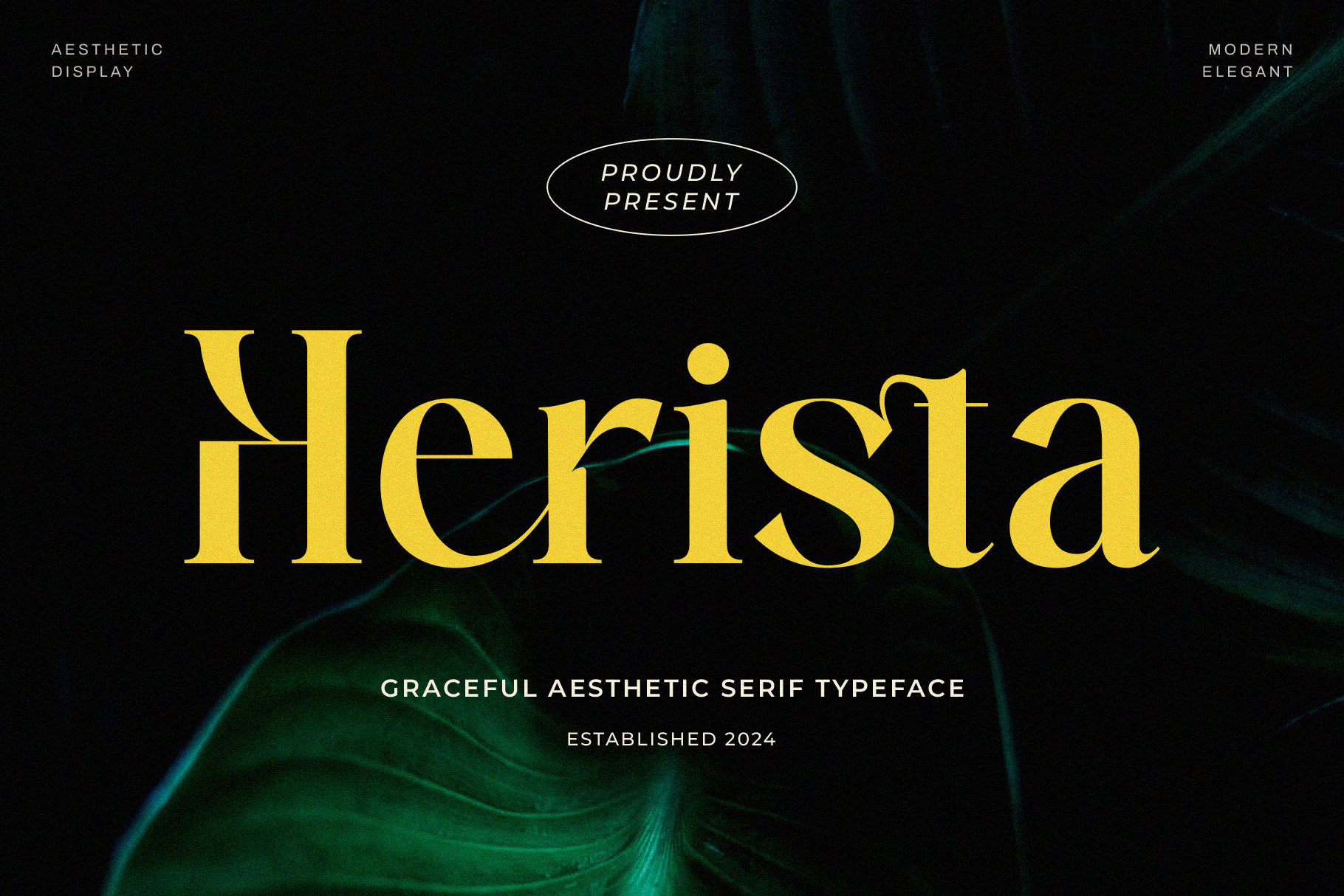
Herista - Aesthetic Serif Font
Introducing our new "Herista" unique and modern serif font with elegant style this is perfect for branding, logos, invitation, magazines, product packaging and more.